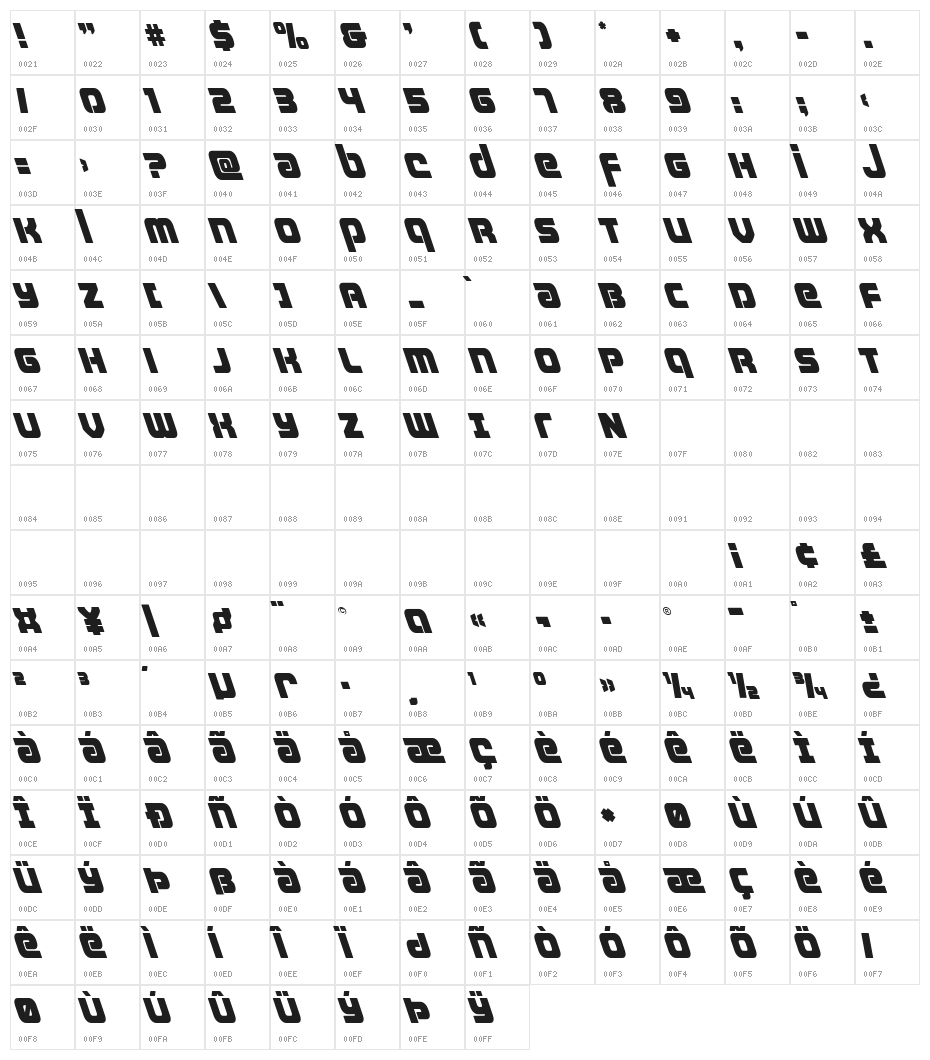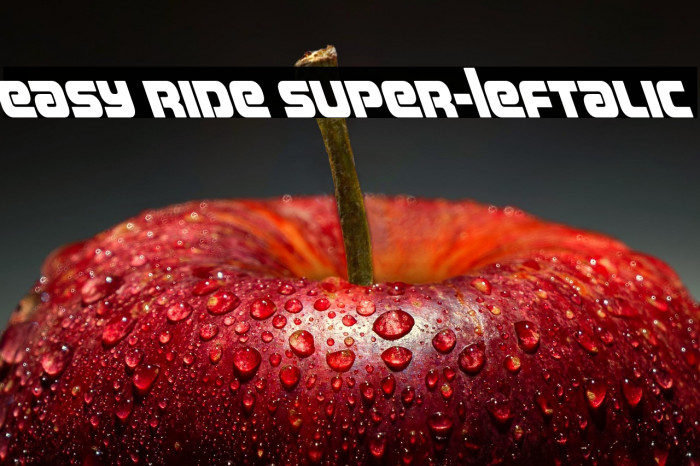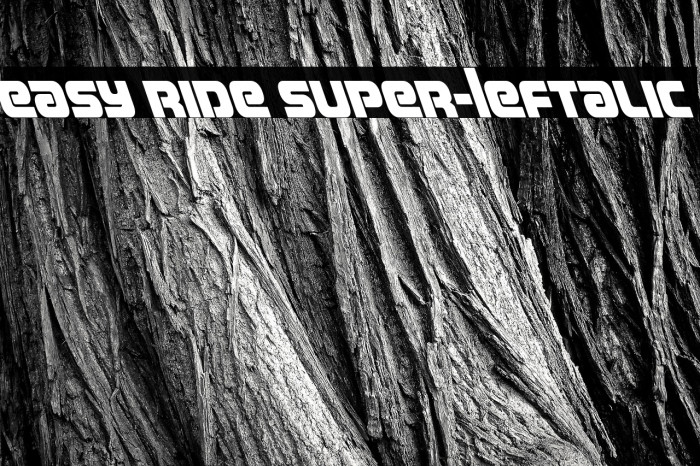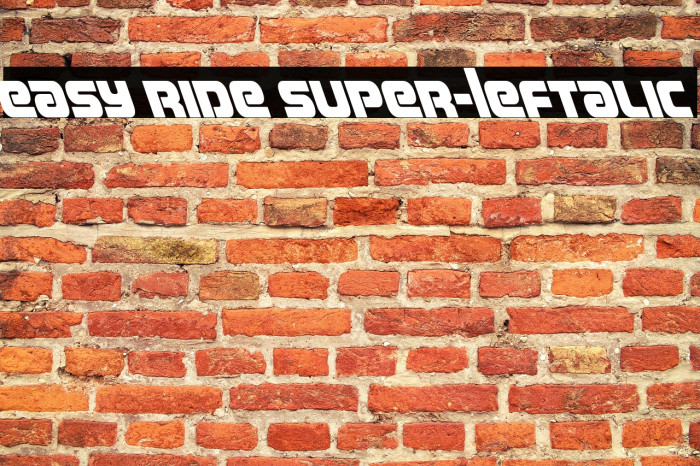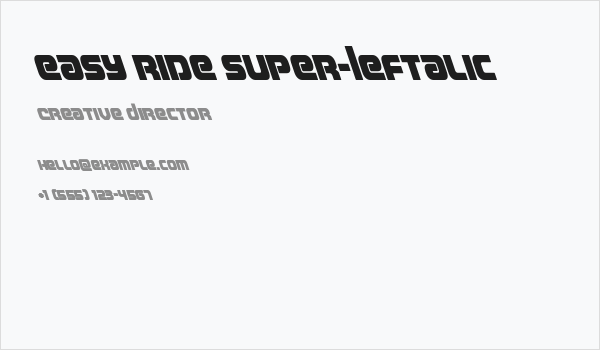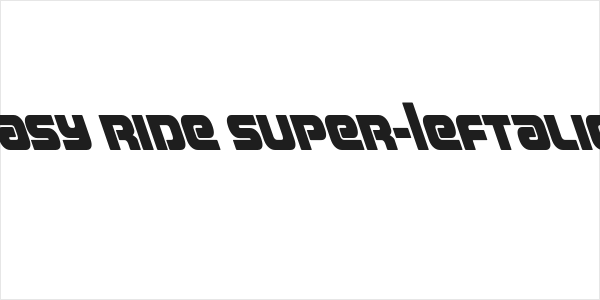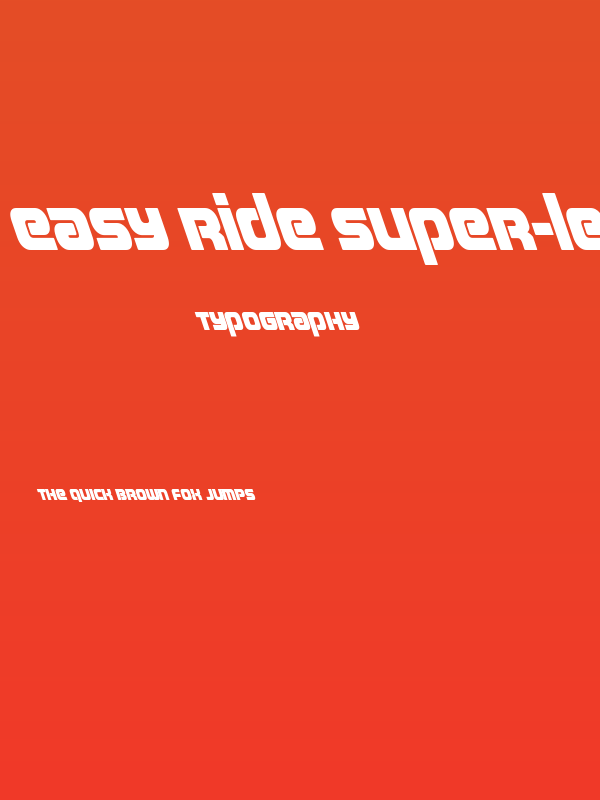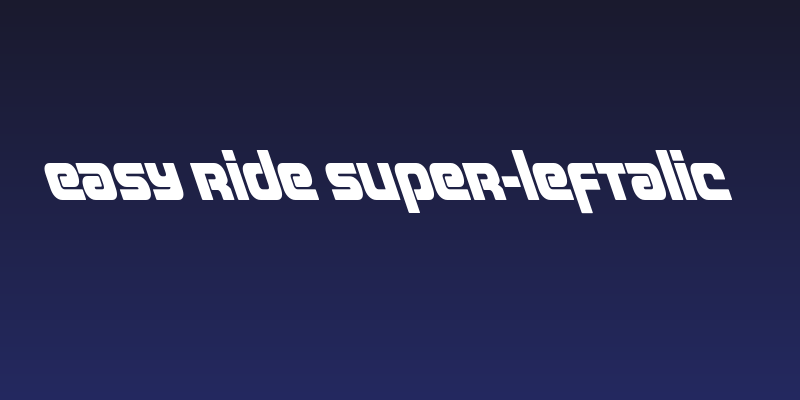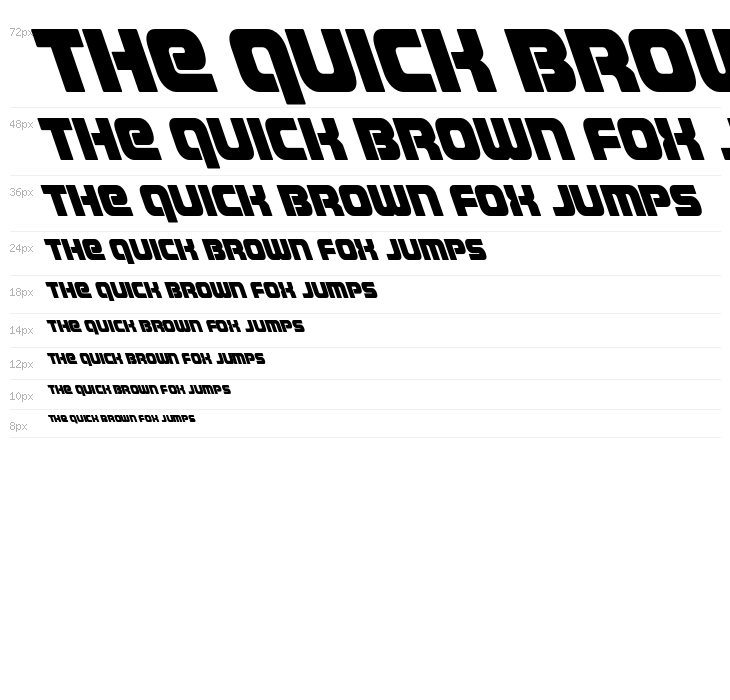
Easy Ride Super-Leftalic Font
Easy Ride Super-Leftalic Description
This font features a bold, geometric design with a distinct slant, giving it a dynamic and modern appearance. The characters are wide and blocky, with sharp angles and a consistent stroke width that conveys strength and stability. The uppercase and lowercase letters maintain a cohesive style, while the numerals and special characters integrate seamlessly into the overall design. The font's boldness and unique style make it suitable for attention-grabbing headlines and logos. Its futuristic and sporty vibe can enhance projects that aim for a modern and energetic look.
| Proposed Projects | Ideal for sports branding, futuristic designs, automotive advertisements, and dynamic posters. |